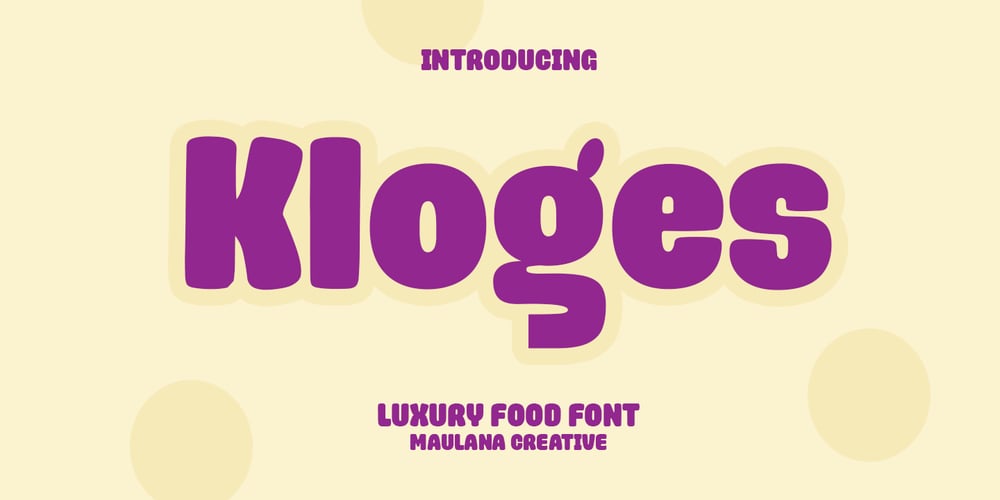
Kloges Font Family was designed by Gilang Maulana and published by Maulana Creative. Kloges contains 1 styles and family package options. Kloges is a casual handwritten sans display font. With bold stroke, fun character with a bit of ligatures and alternates. To give you an extra creative work. Kloges font support multilingual more than 100+ language. This font is good for logo design, Social media, Movie Titles, Books Titles, a short text even a long text letter and good for your secondary text font with sans or serif. Make a stunning work with Kloges font. Cheers, Maulana Creative